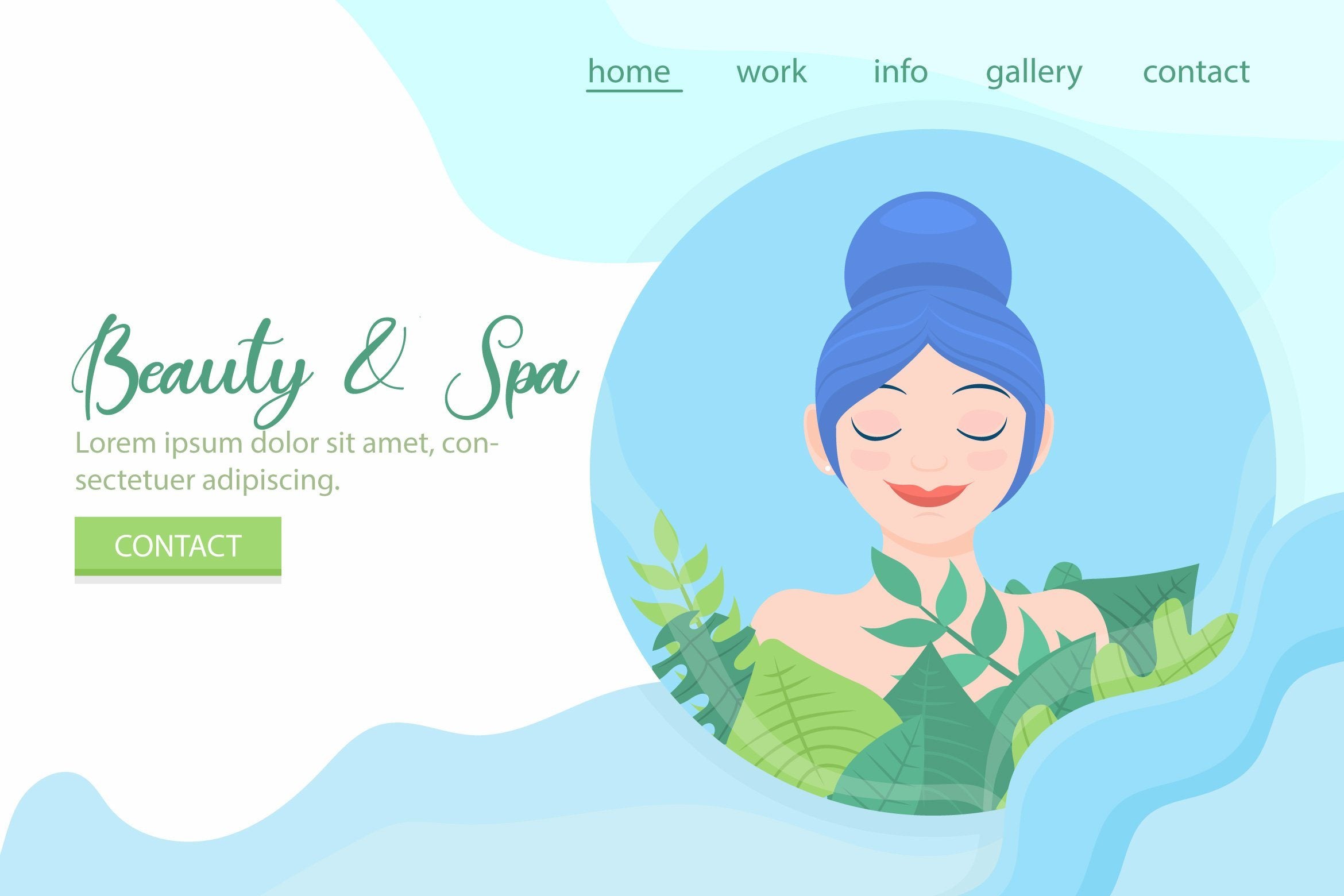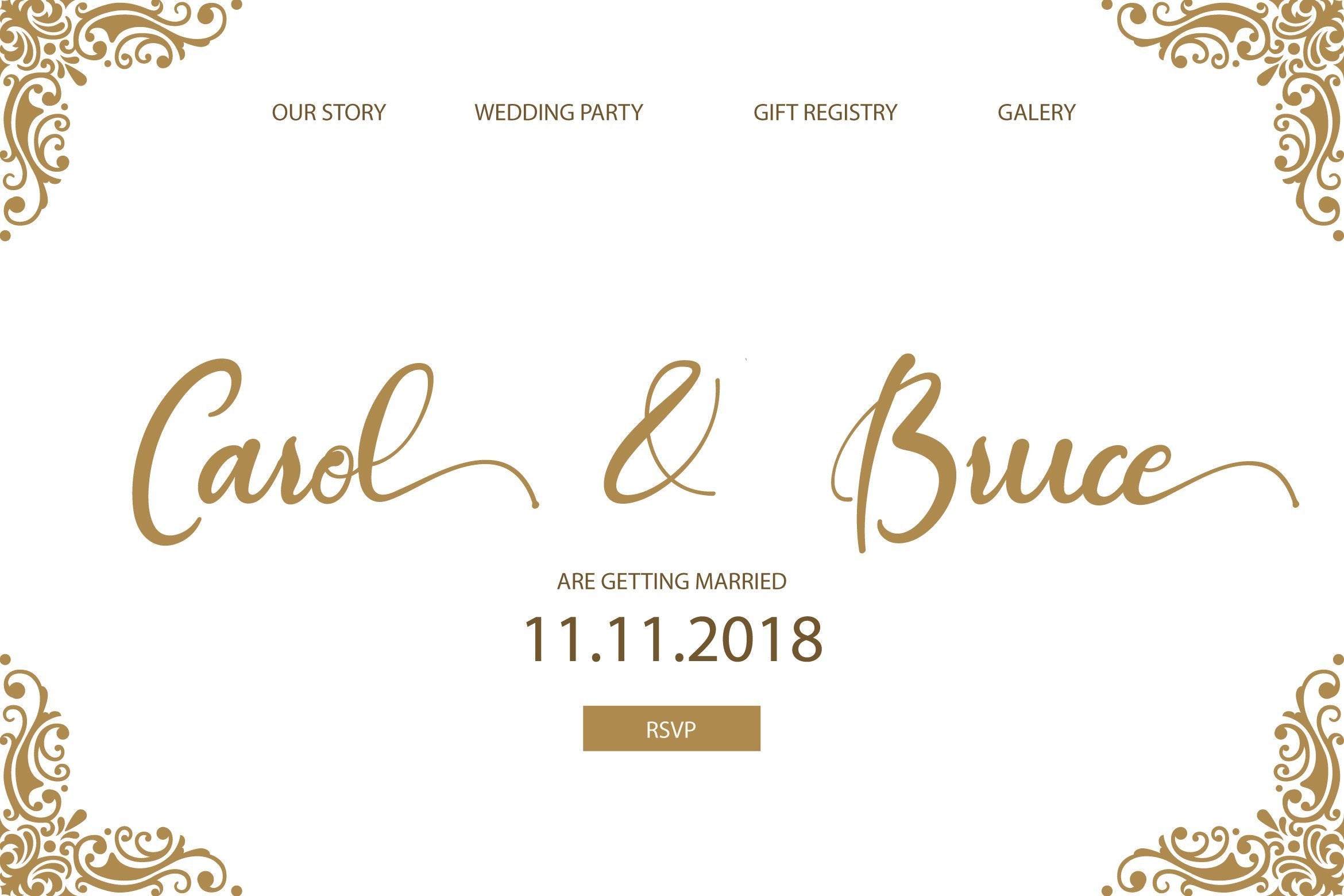
Baritta script
About Baritta script
Baritta script with a feminimst calligraphy style, decorative characters . in this font script there are many alternative choices of characters Support Ligature and Stylistic set. So beautiful on invitation like greeting cards, branding materials, business cards, quotes, posters,wedding invitations and more!! If you don’t have a program that supports OpenType features such as Adobe Illustrator and CorelDraw X Versions, you can access all the alternate glyphs using Font Book (Mac) or Character Map (Windows).To Access Alternate Characters Click The Link Below: How to access alternates in Adobe illustrator CS https://www.youtube.com/watch?v=geL0Ye02Ryk How to access alternates in Adobe illustrator CC https://www.youtube.com/watch?v=V25yiUh8BcE How to access alternates in Ms Wordhttps://www.youtube.com/watch?v=HxkhZiCuwEw How to access alternates in Coreldraw X7 https://www.youtube.com/watch?v=UBVsufJjons How to access alternates in Indesign CS https://www.youtube.com/watch?v=HgZTCxKG14Q How to access alternates in Adobe Photoshop CC https://www.youtube.com/watch?v=BYKXl58AdNY If you have any question, don’t hesitate to contact me by email  Thanks and happy designing ???? Thank You for purchase!